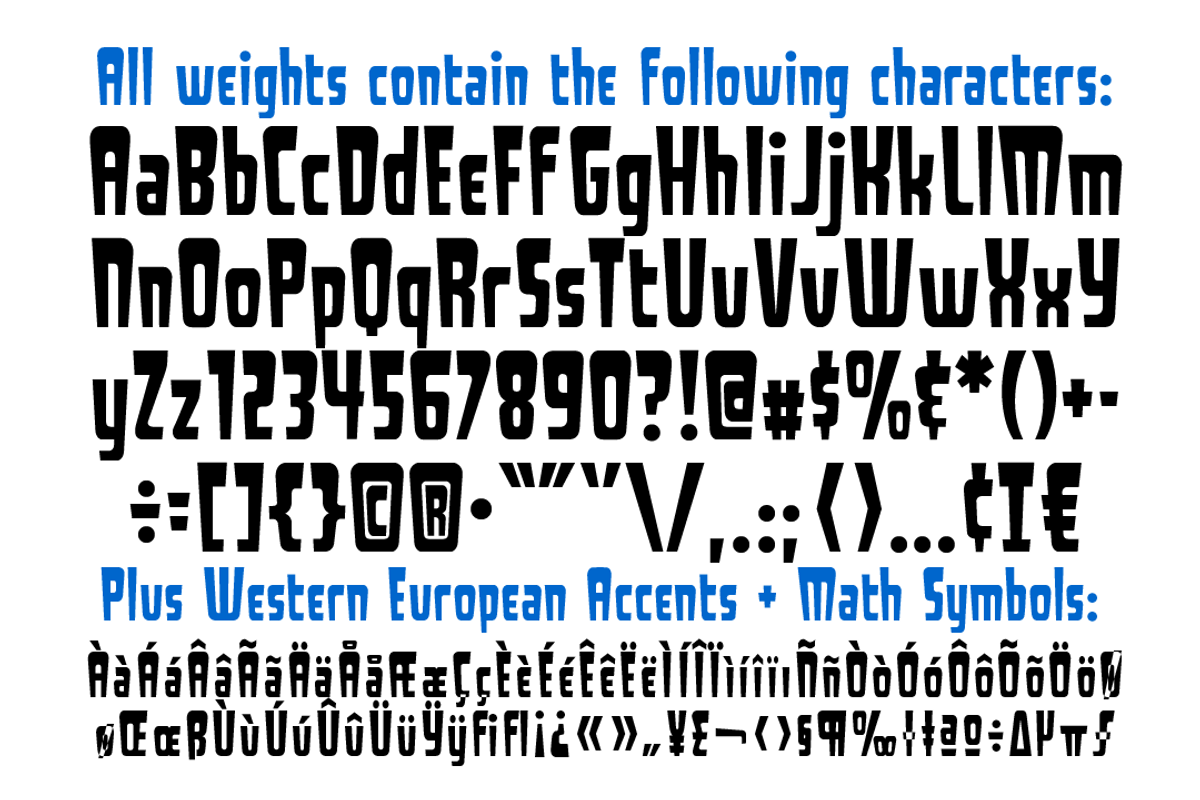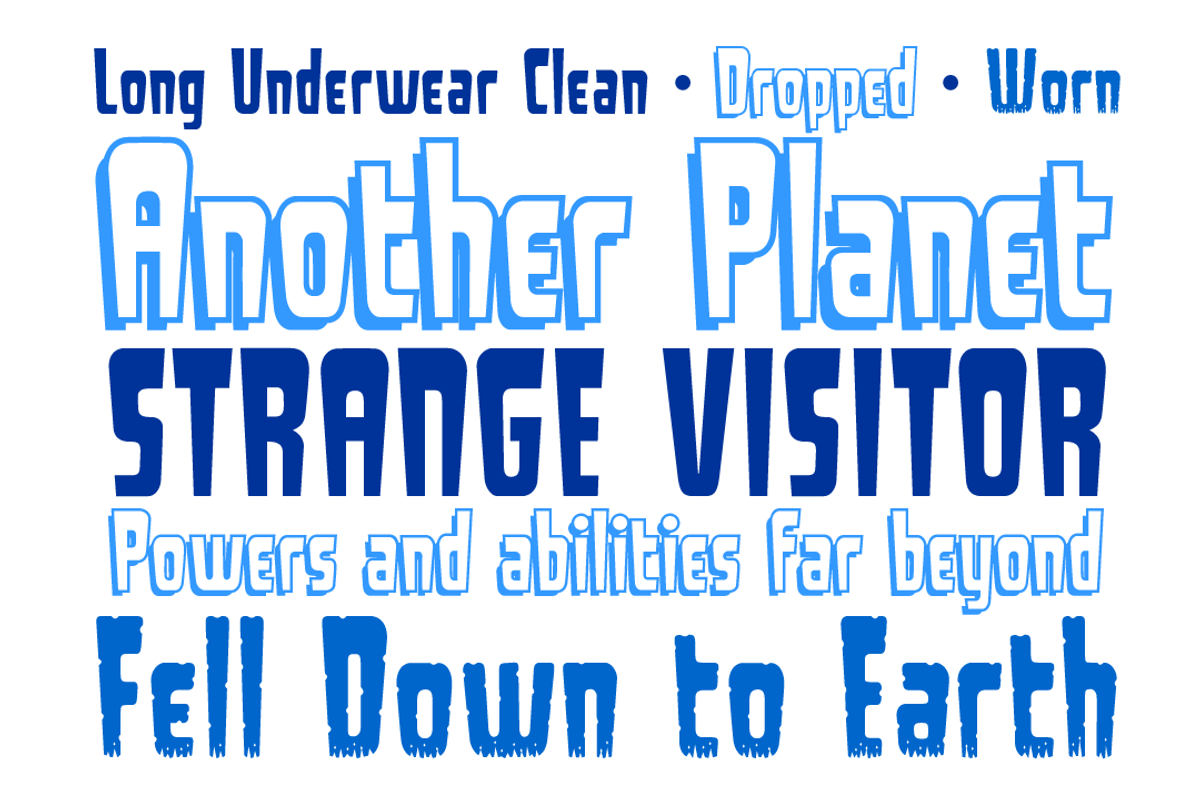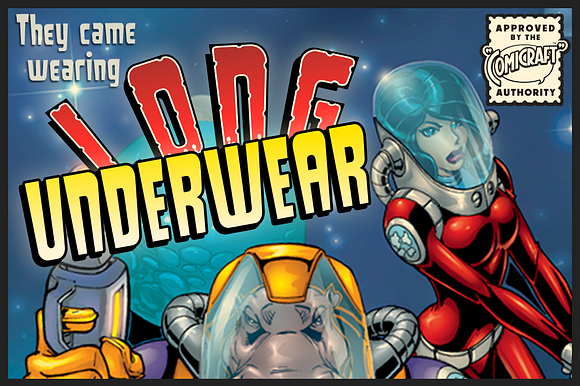
Long Underwear
Boy, they're everywhere. One of your neighbors is probably one of them, Freaking super-heroes (TM, ©, ®, SM blah blah blah) are more ubiquitous in cities these days than Simon Cowell is on talent shows. Notice how that guy on the subway -- the one with the boy scout haircut? -- see how he keeps his shirt buttoned all the way up? He's not sweating either... that's 'cause he's probably from some dead planet that exploded twenty years ago. His REAL parents wrapped him in blankets and, when he turned 18, his Ma on Earth turned those same blankets into Long Underwear for her foster son. He's probably wearing his long underwear right now. That's why he's smiling at you through his horn rimmed glasses. He thinks you don't know. Thinks he's special. Thinks he's a super-hero (TM, ©, ®, SM blah blah blah). Ain't that Super?
Long Underwear by Comicraft Fonts fits naturally into Branding, posters, packaging, typography.